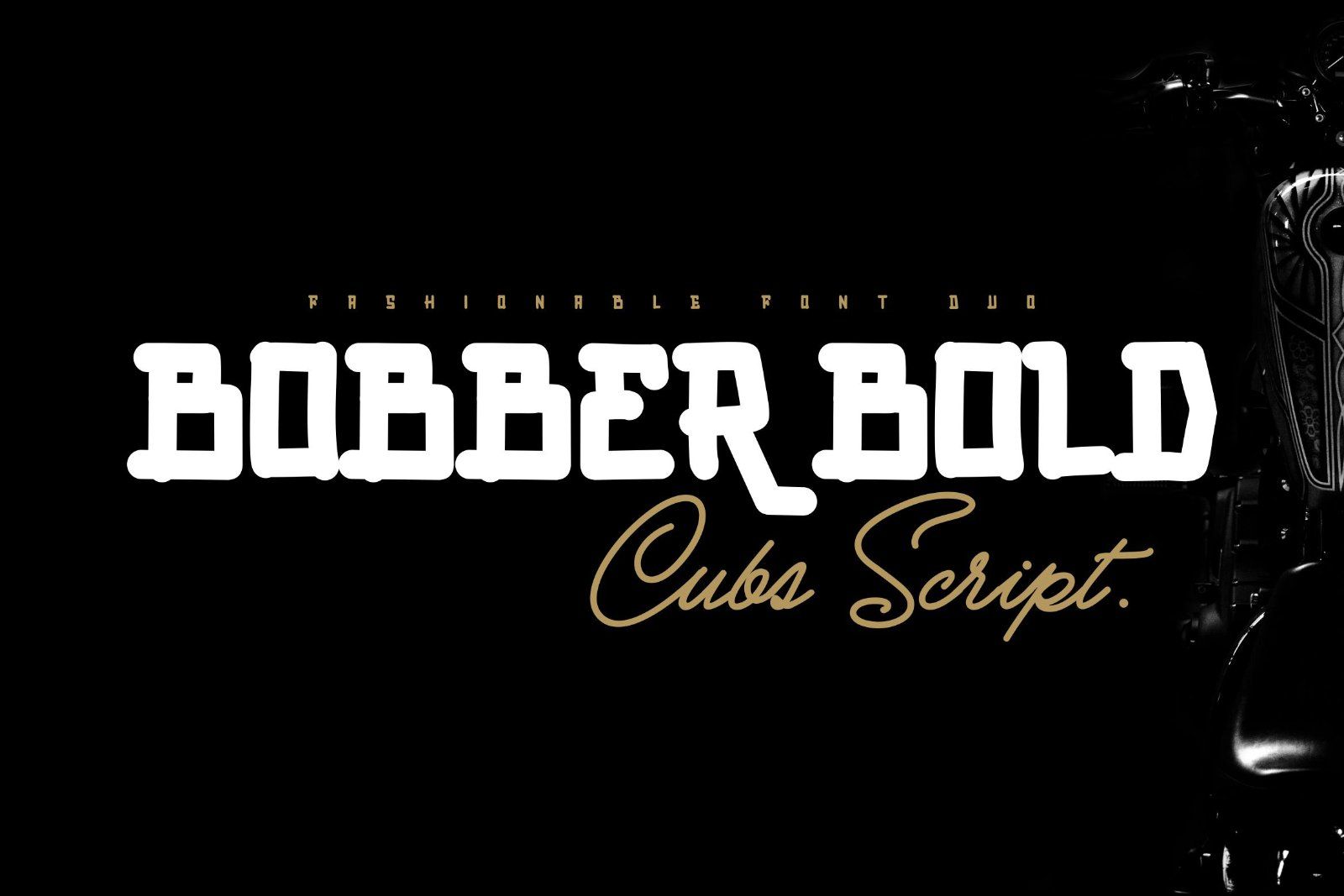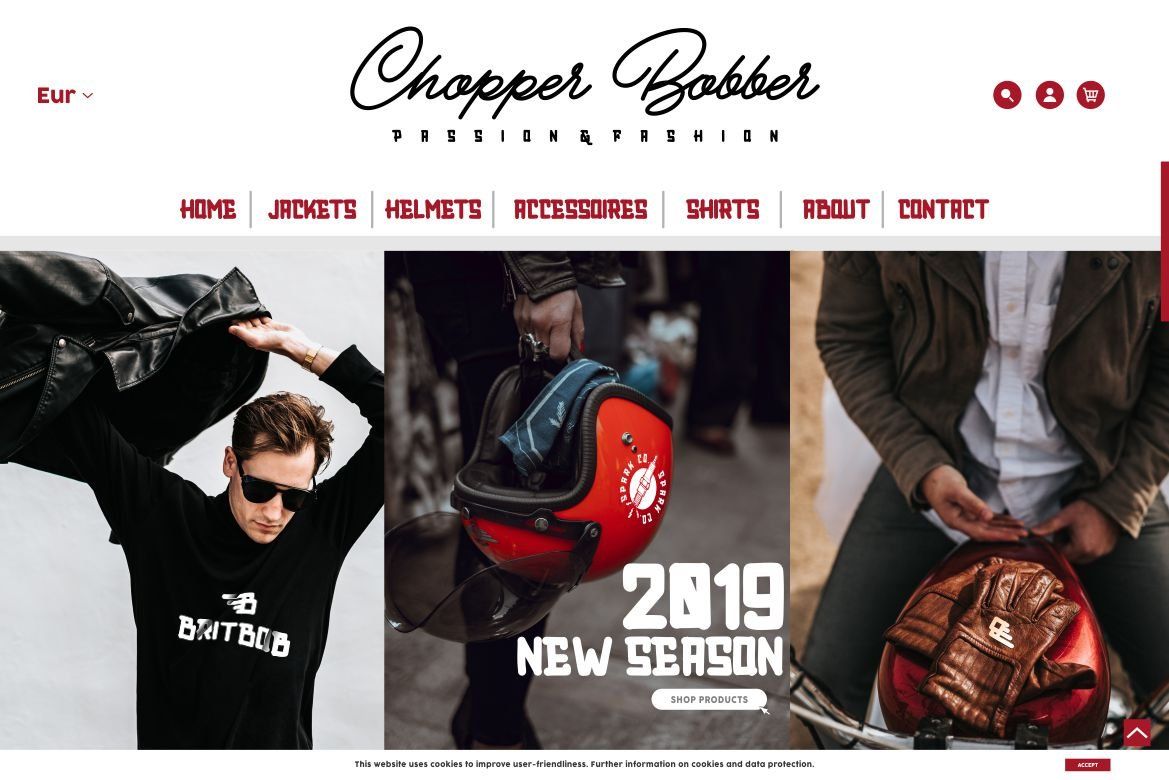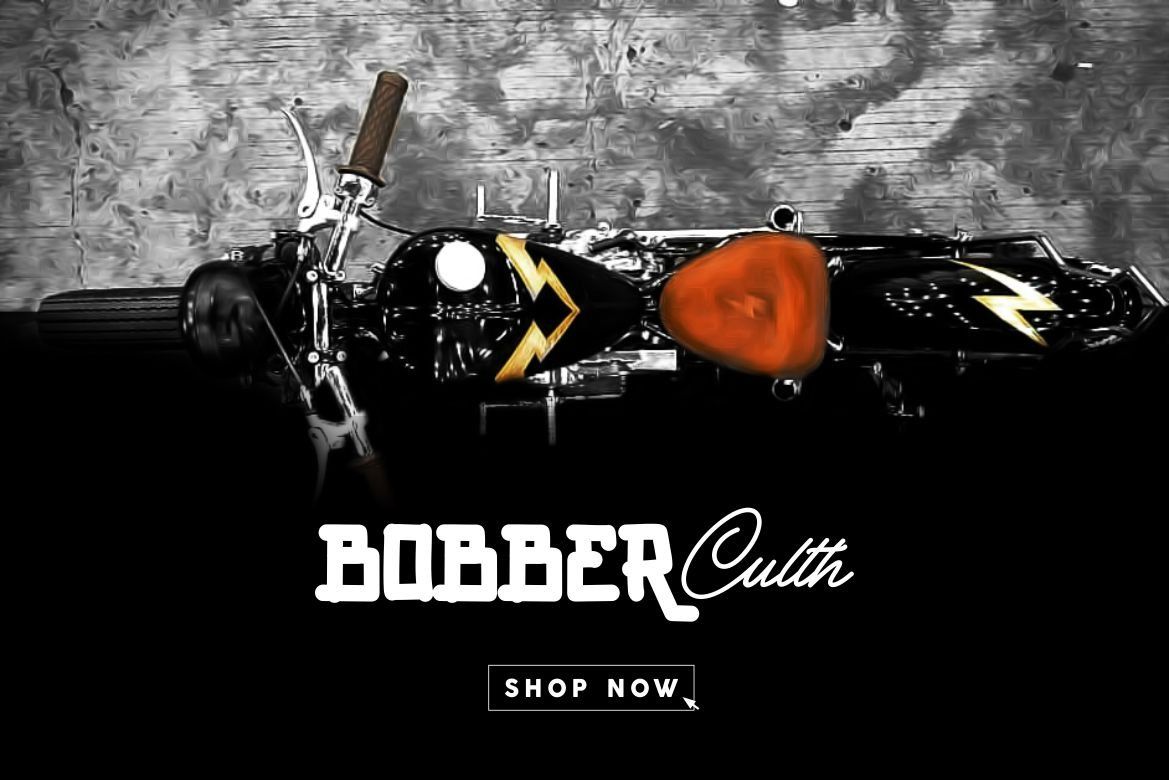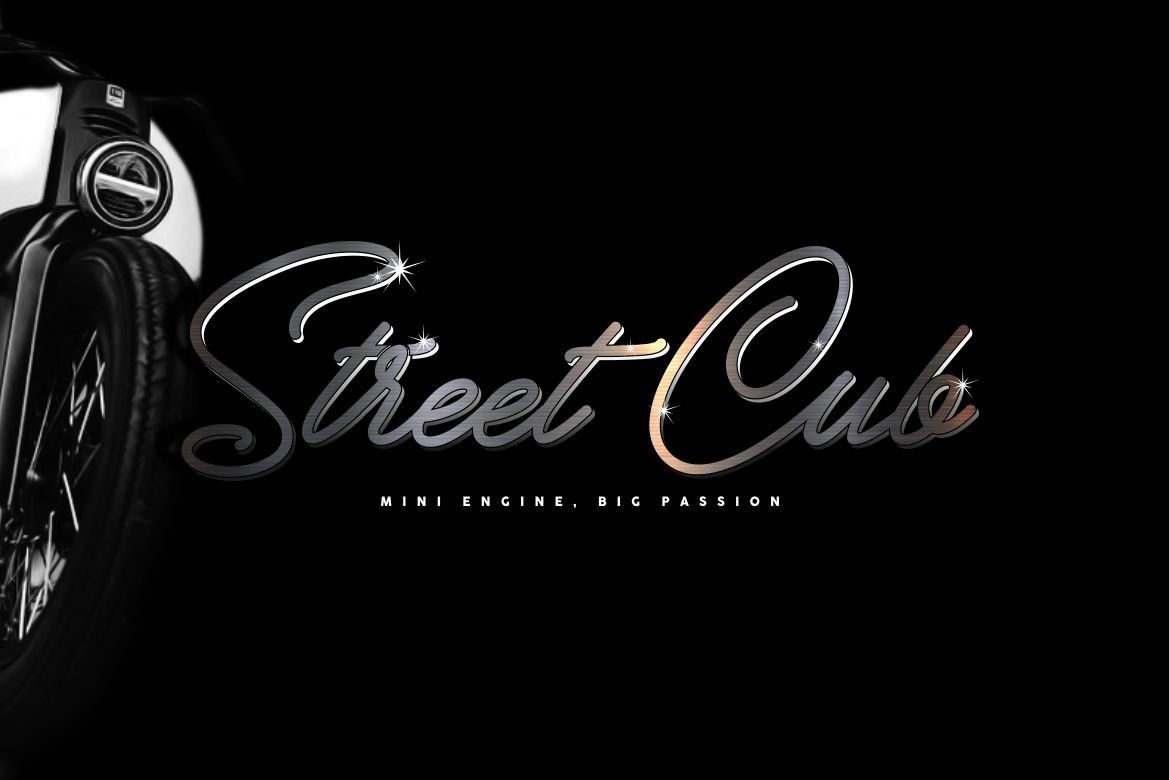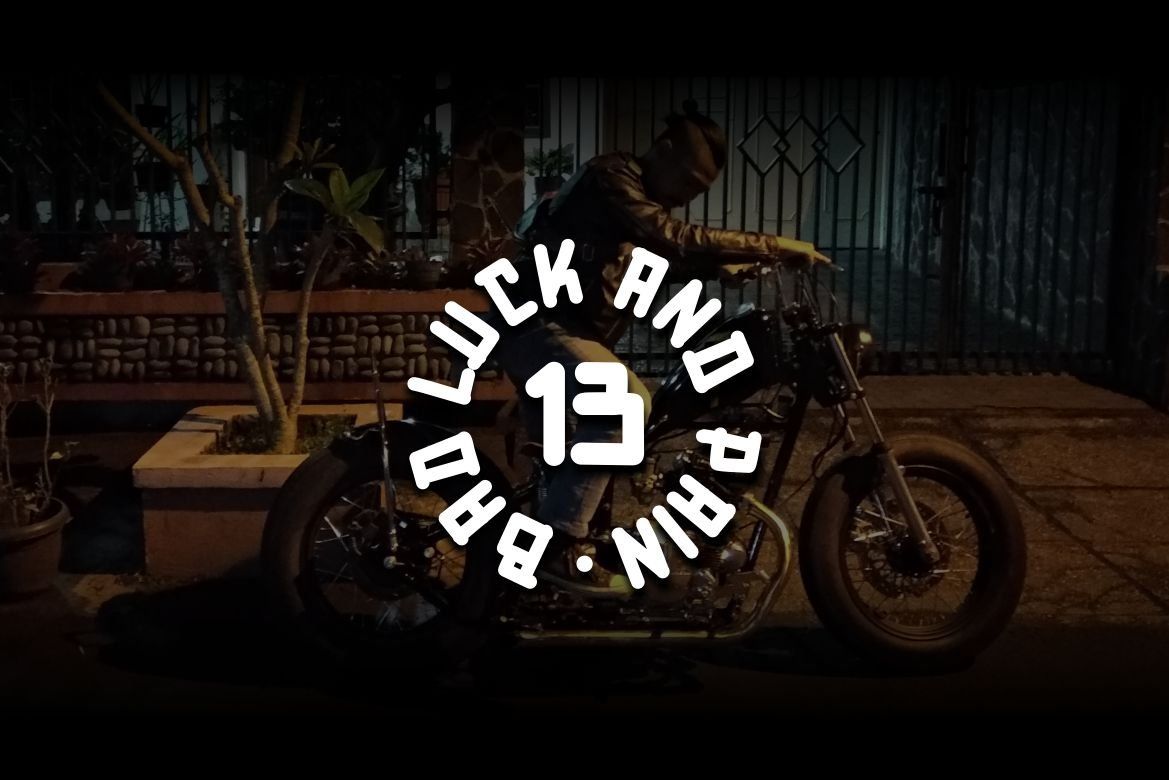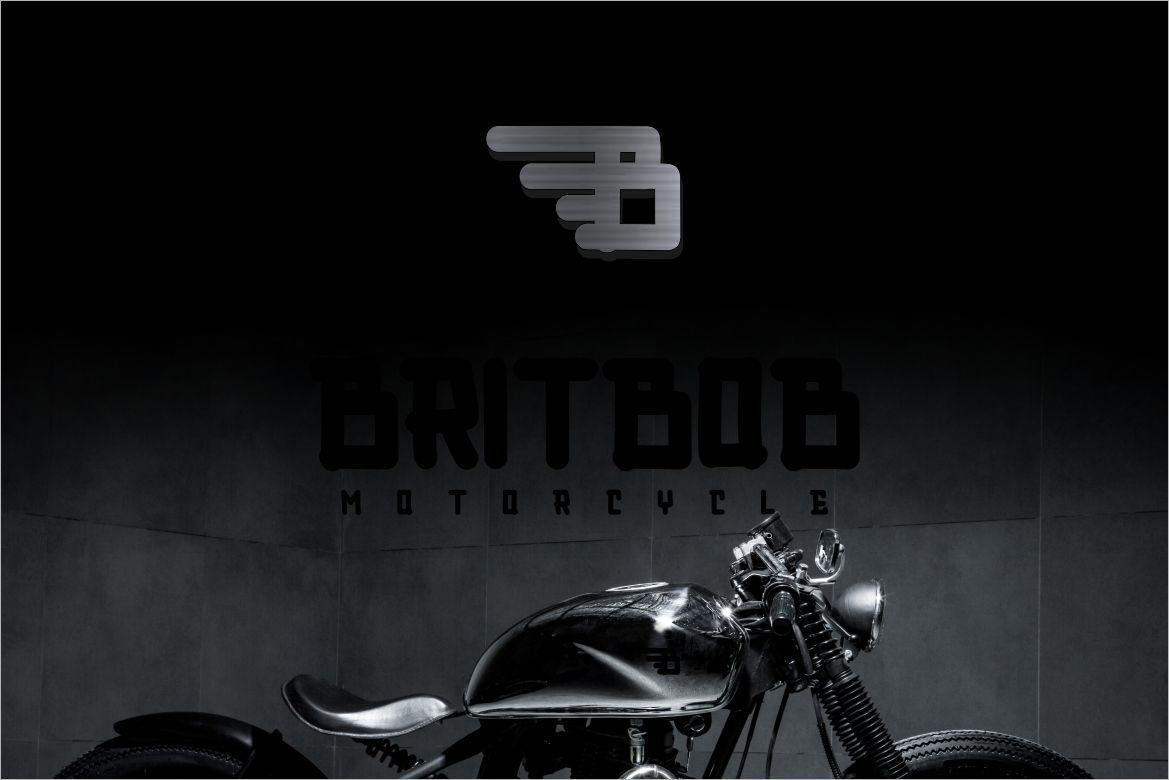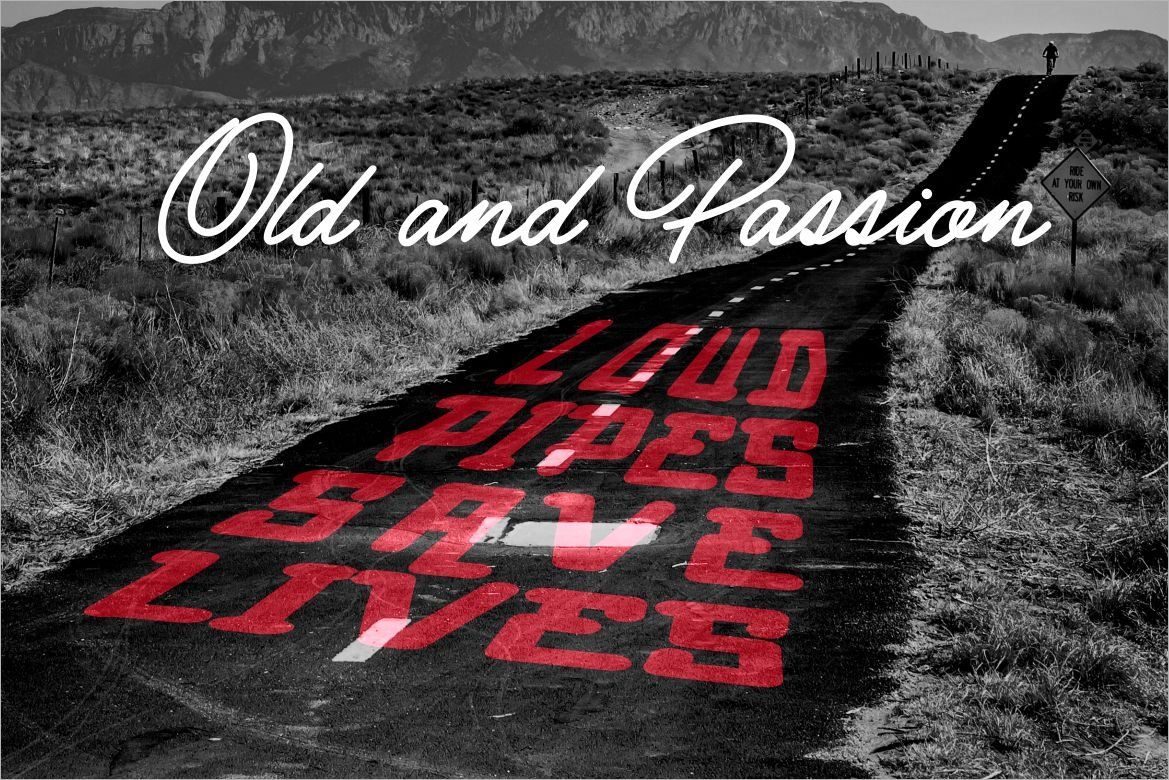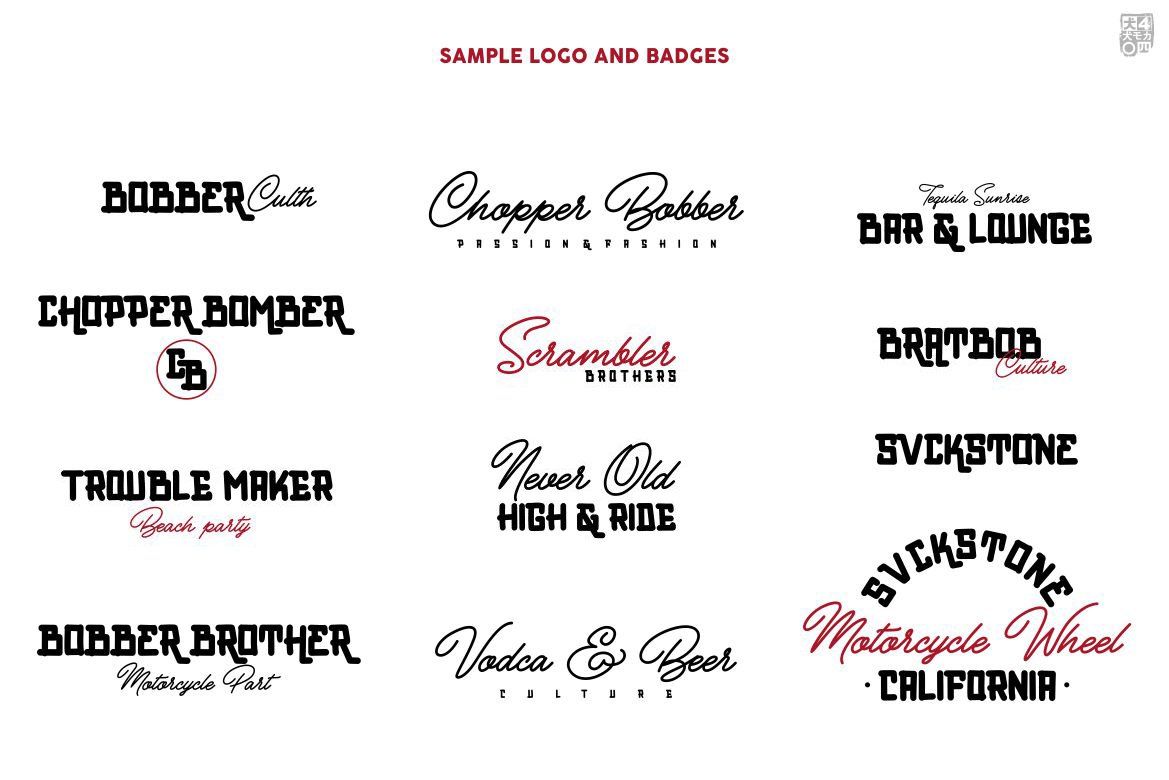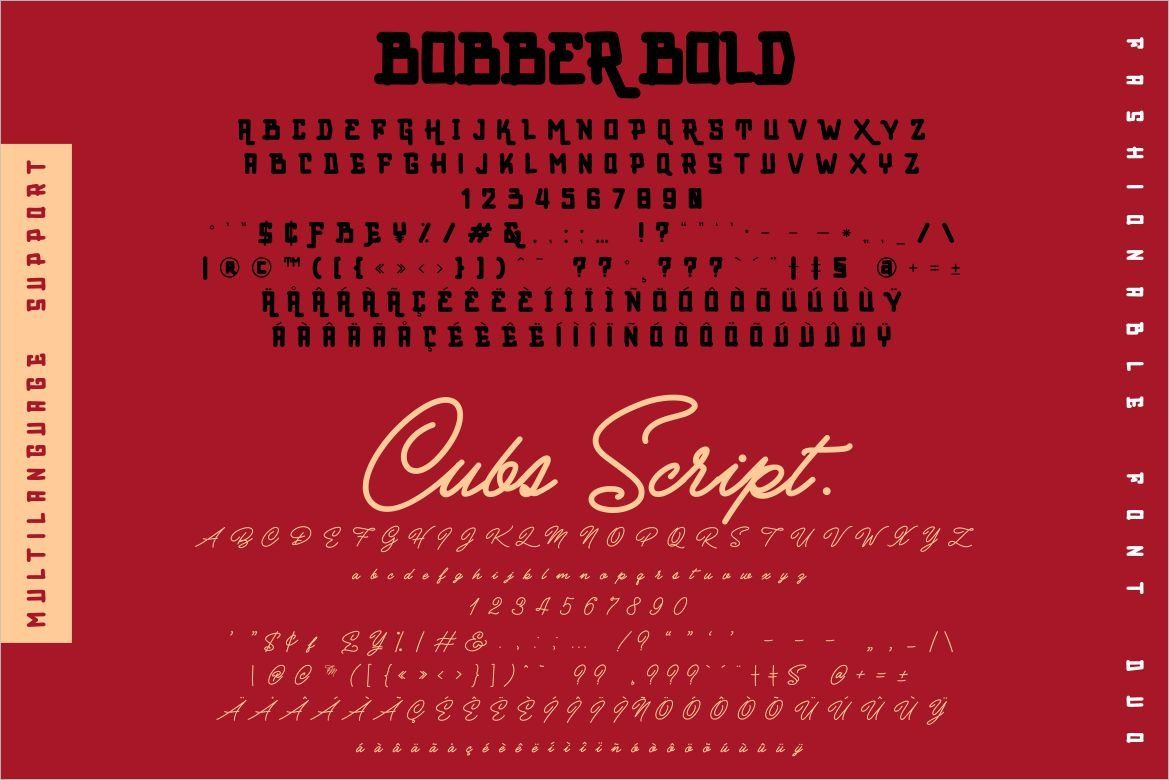
when you see all glyphs of BOBBER BOLD, its really like a rear wheel Bobber style, thick, filled and powerfull, combine with Cubs Script, really eyescathing, Modern and fresh, very supportive for you needs, make somethink differnt can into all genre in society now. not only writing, but giving character to writing, which will be able to give a different impression.
BOBBER BOLD And Cubs Script its all handlettering by me
• Unique glyphs
• Multilingual Characters
• UPPERCASE
• Lowercase
• Numeric
• Symbol
• Punctuation Character